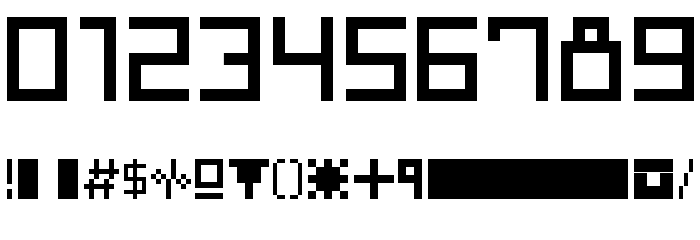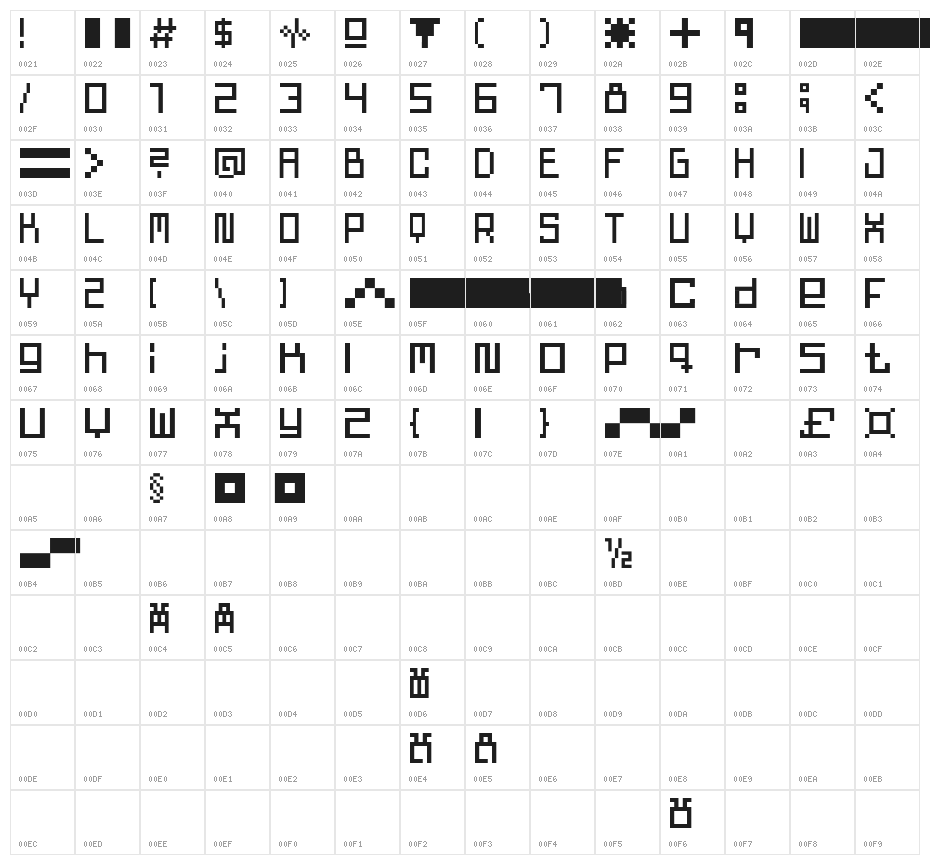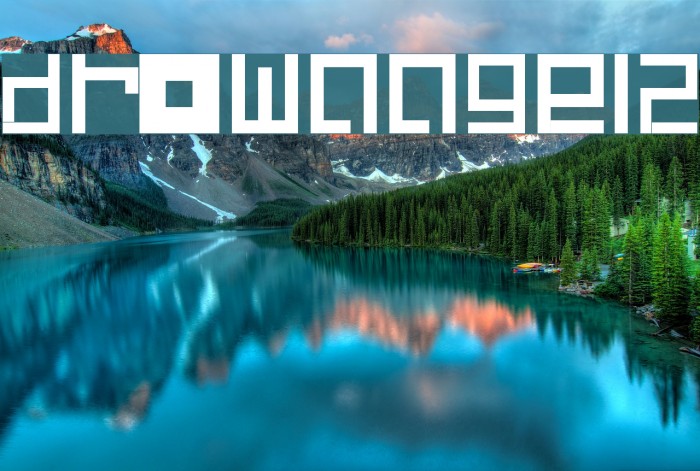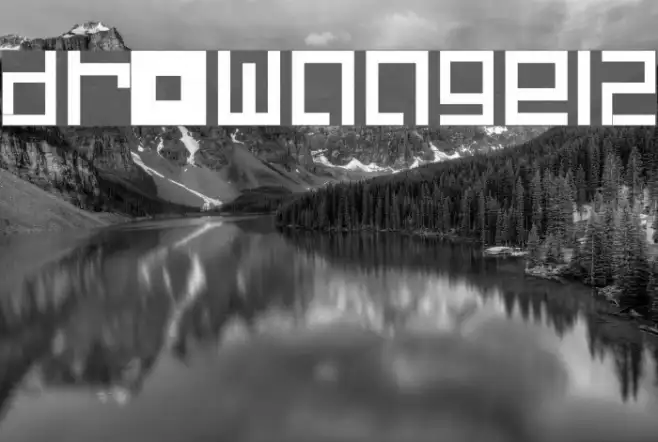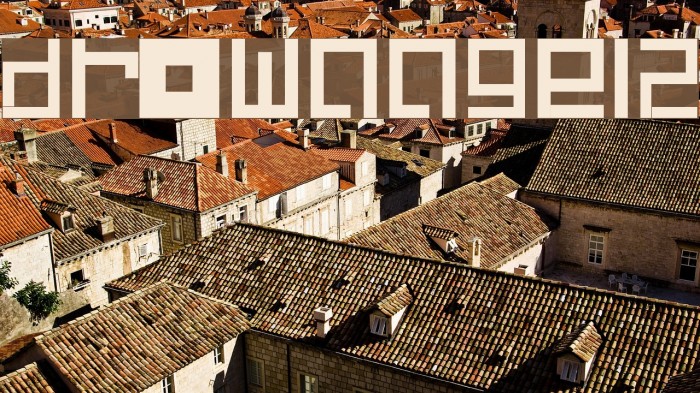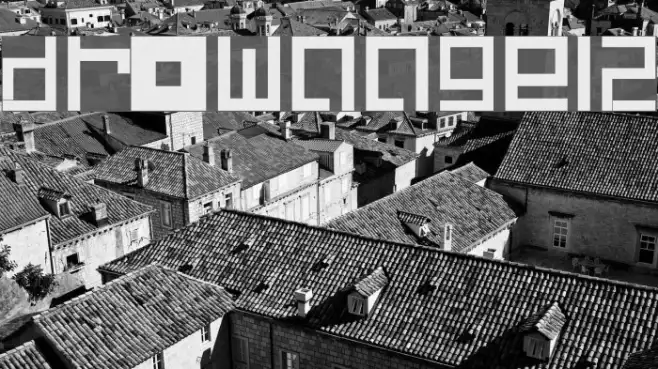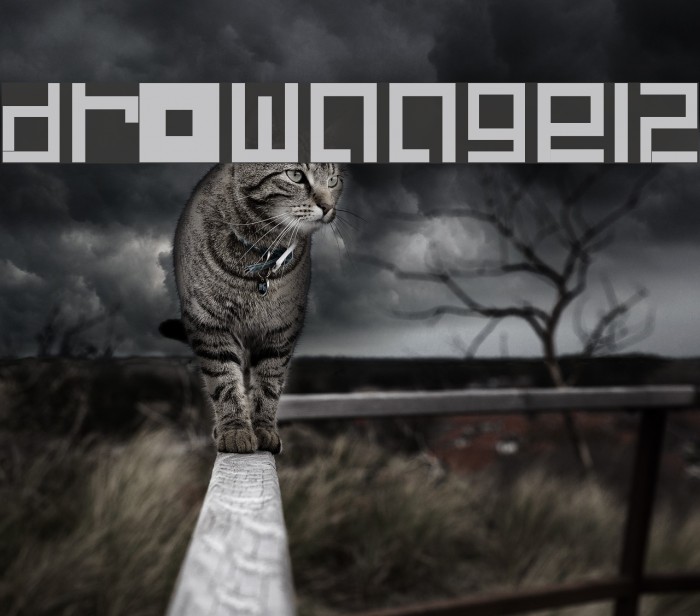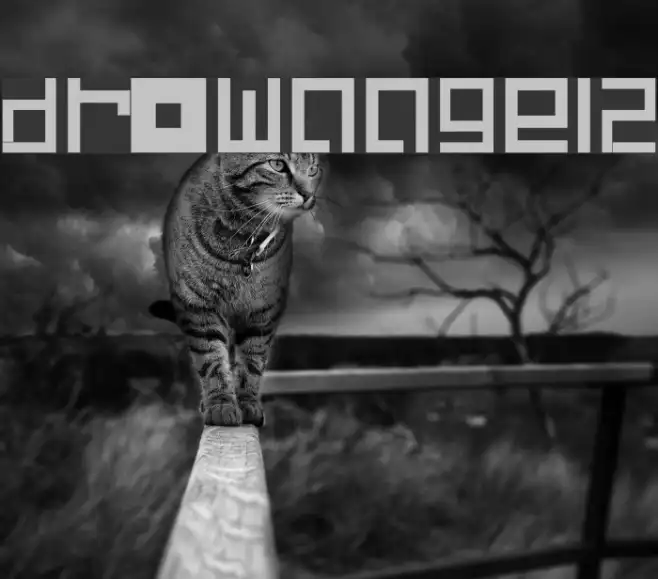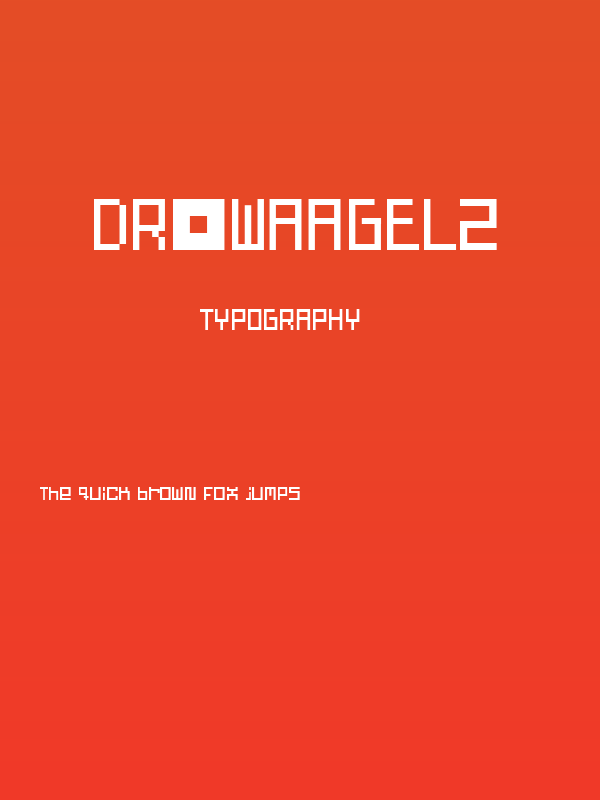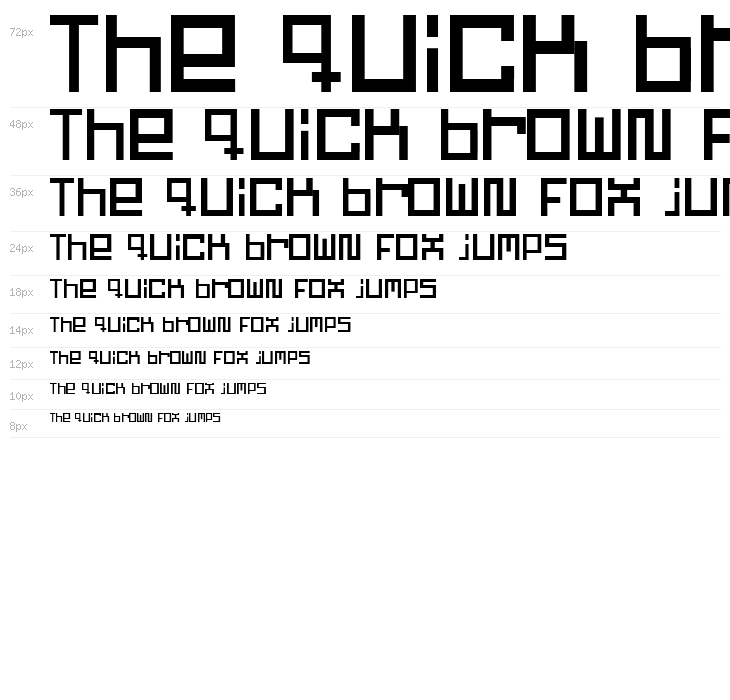
dr.waagel2 Font
dr.waagel2 Description
This font features a bold, geometric design with a distinctly modern and digital aesthetic. The characters are constructed with straight lines and right angles, giving them a blocky, pixelated appearance reminiscent of early digital displays or retro video games. The uppercase and lowercase letters maintain a consistent height, contributing to a uniform look. The numerals and special characters follow the same design principles, ensuring a cohesive style throughout. This font is highly legible and impactful, making it suitable for projects that require a futuristic or tech-inspired feel.